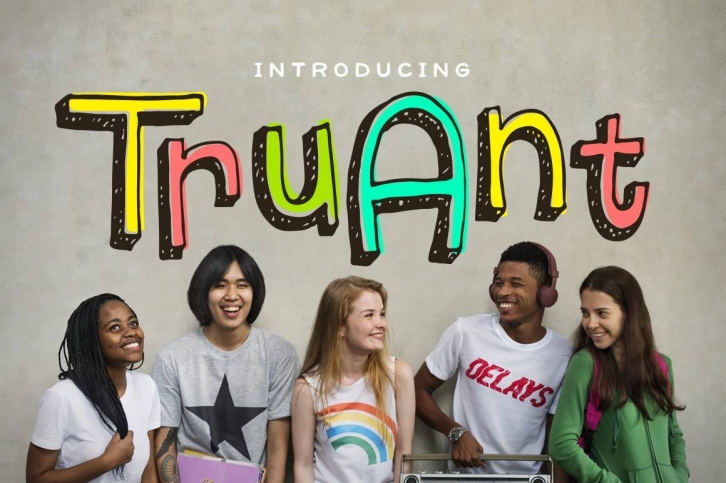
Truant Font Download
Truant is a trendy and unique font with an authentic style. It was designed by Denise Chandler and it's a great choice for creative people who need such a font. It was released on June 6, 2017 and the file size is 21.89 MB. Truant will add an organic vibe to any design idea!